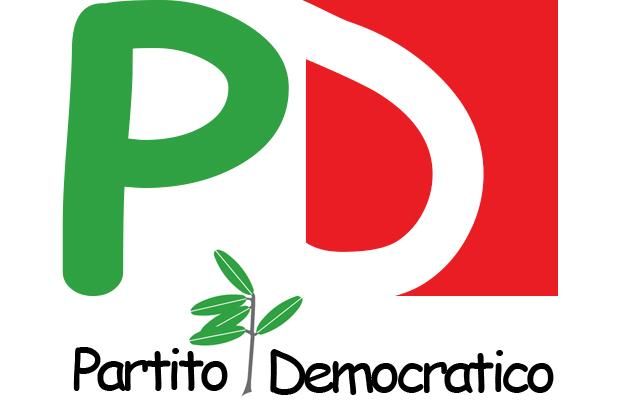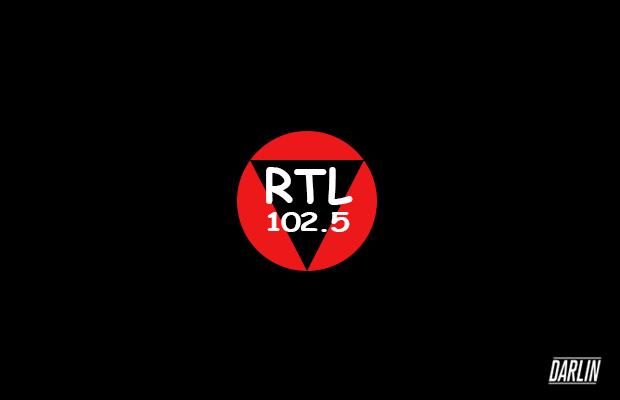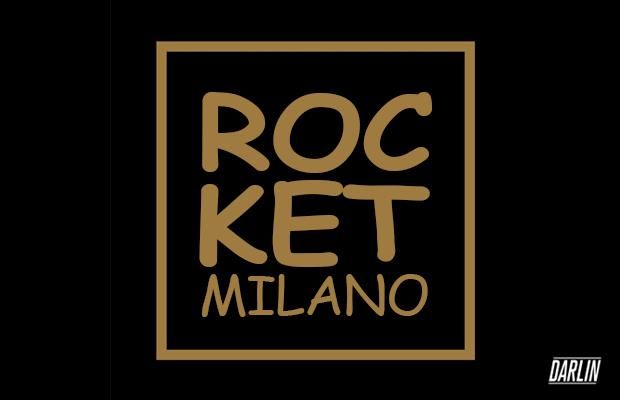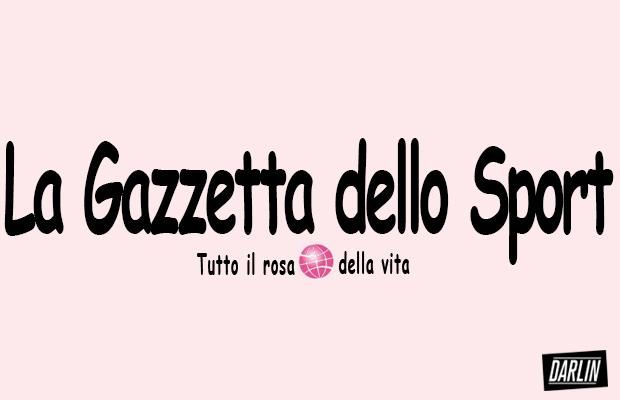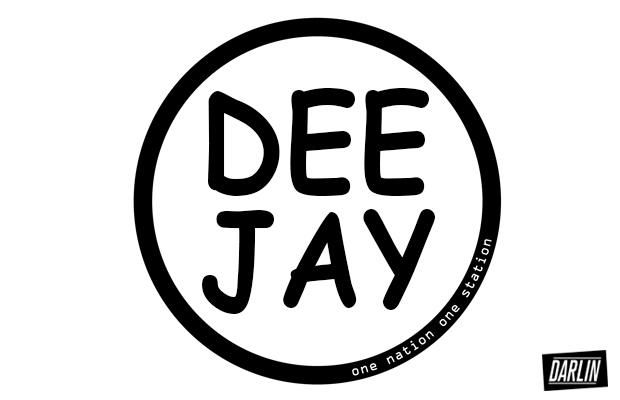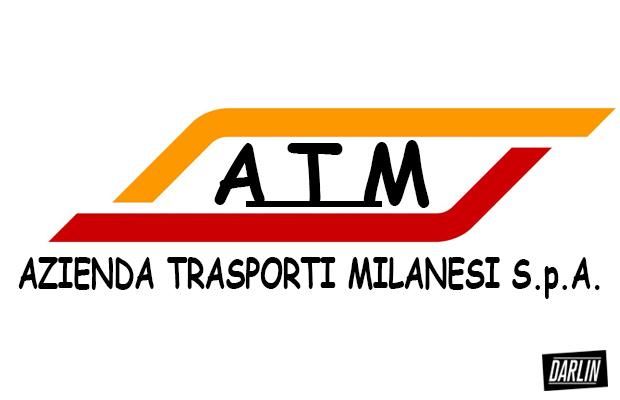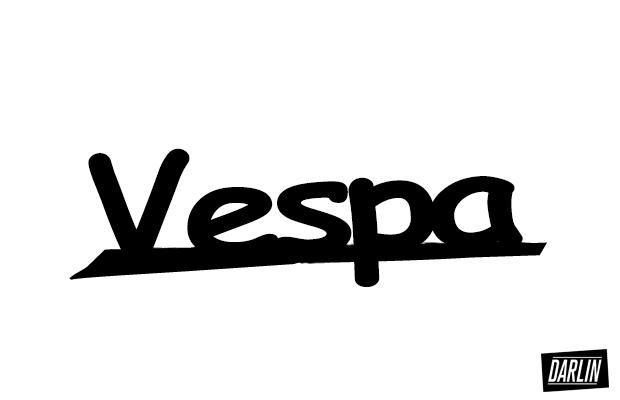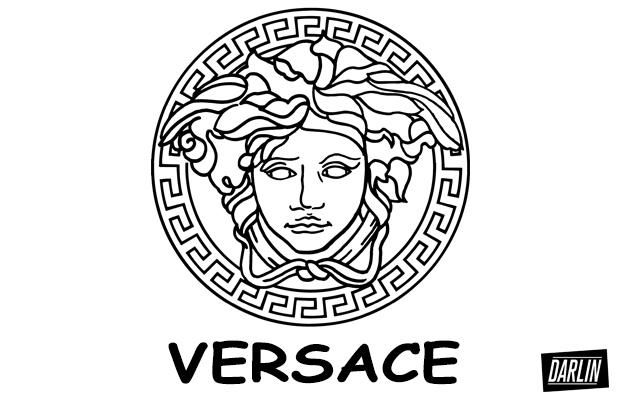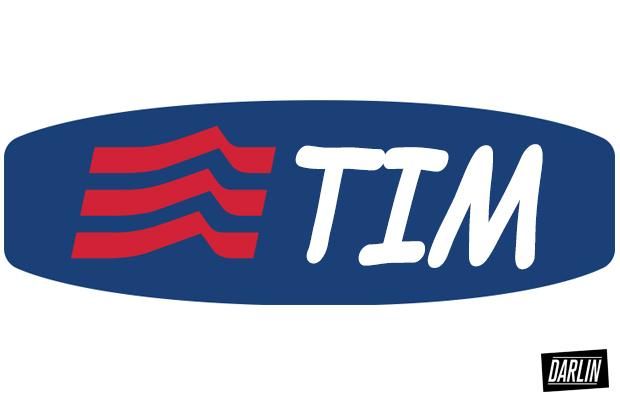
Loghi di brand italiani con il font Comic Sans MS by Darlin Magazine
The Comic Sans MS font is the most recognizable, the undisputed king of bad taste. To "pay homage", a Tumblr has decided to resume the brand logos in Comic Sans MS and offer a moment of carelessness. Our friends of Darlin went further, proposing a gallery of Italian brands with this font. Alitalia, Barilla, Ferrari ... there is also ours!! what is your favorite? # ItaliaSansMS